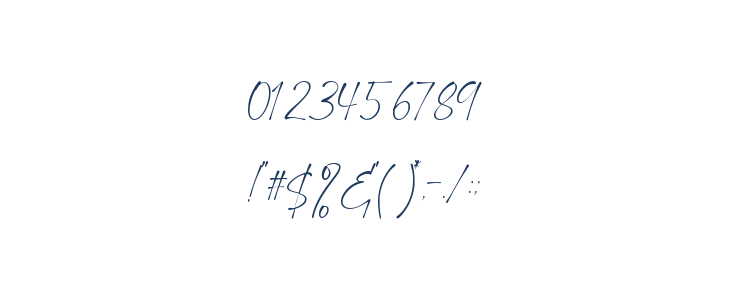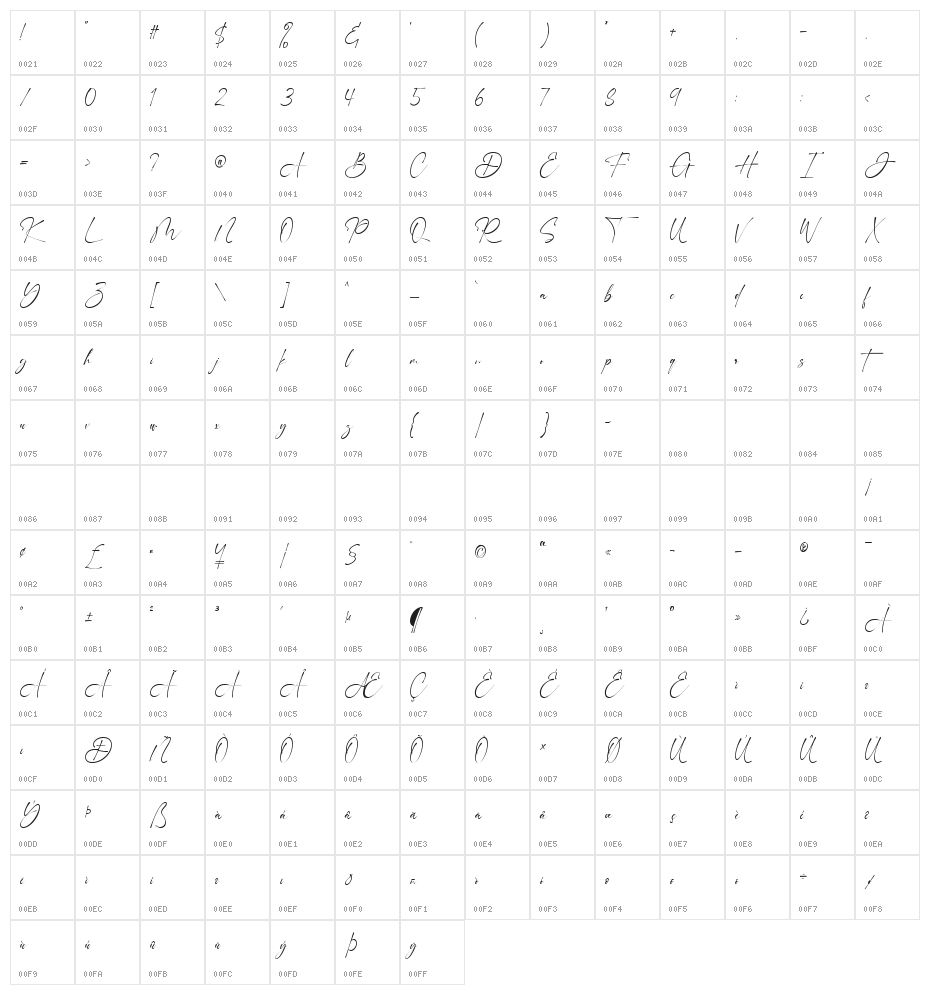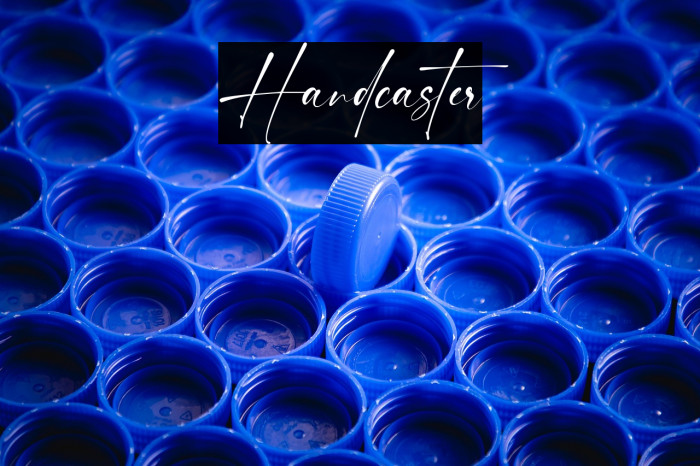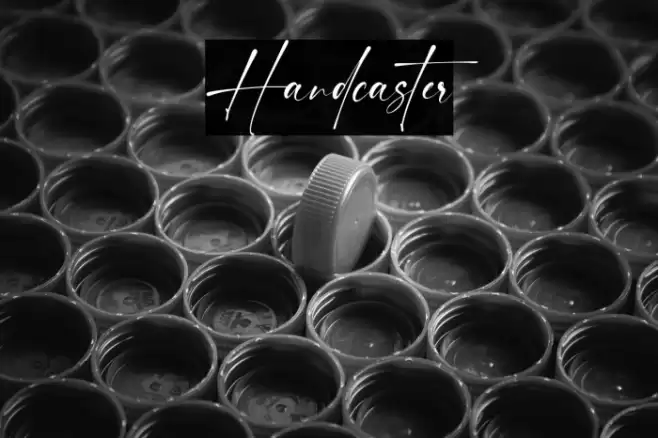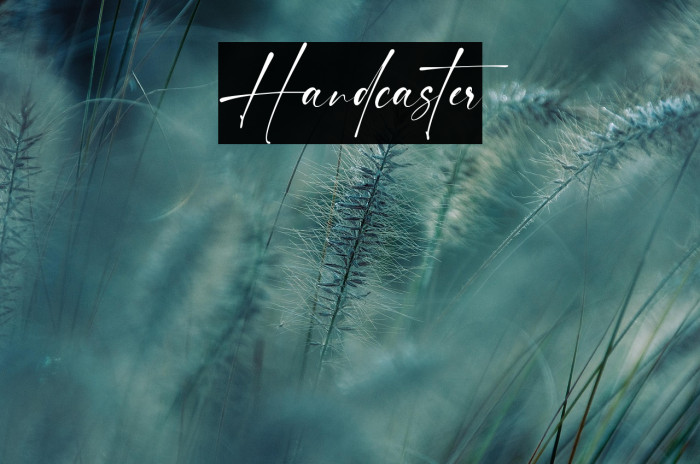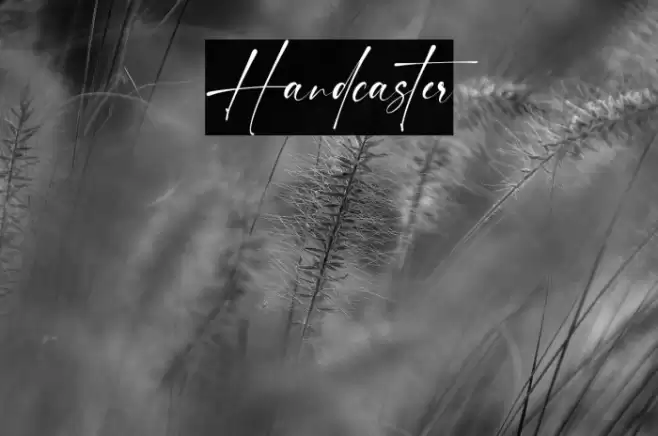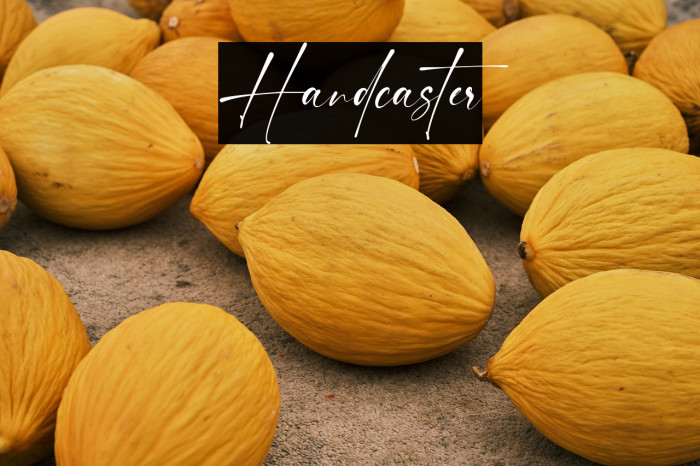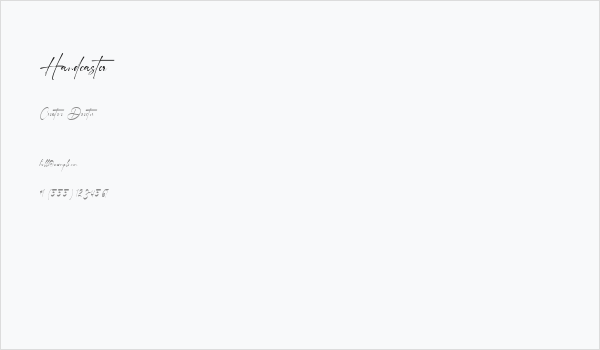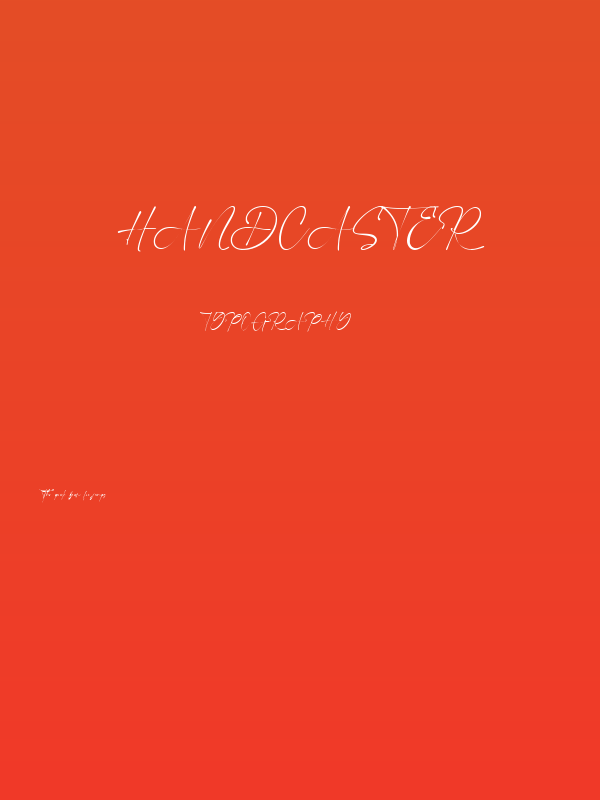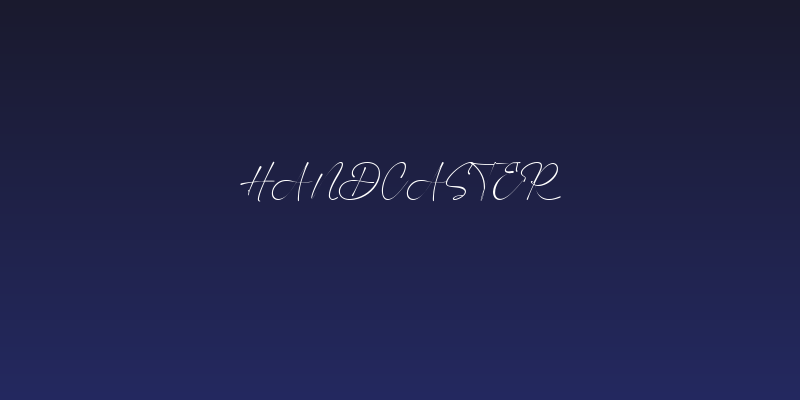
Handcaster Font
Handcaster Description
This font exudes elegance and sophistication with its flowing, cursive style. The letters are intricately designed with smooth, sweeping curves and delicate strokes, giving it a handwritten appearance. The uppercase letters are particularly ornate, featuring elaborate loops and flourishes, while the lowercase letters maintain a more restrained yet still graceful form. The numerals and special characters are consistent with the overall aesthetic, ensuring a cohesive look across all text. This font is perfect for adding a touch of class and refinement to any project.
| Proposed Projects | Ideal for wedding invitations, greeting cards, elegant branding, and high-end product packaging. |